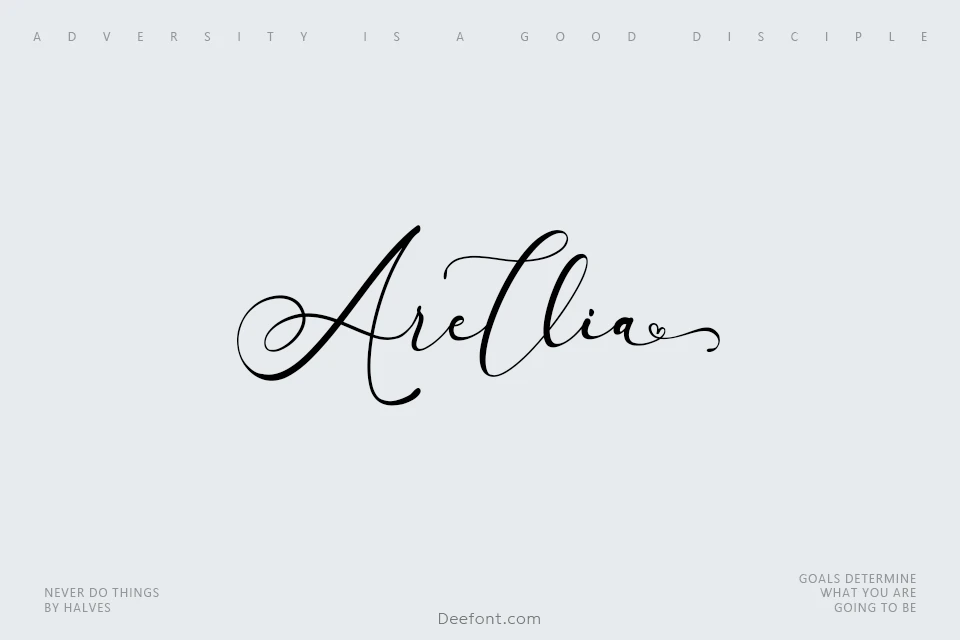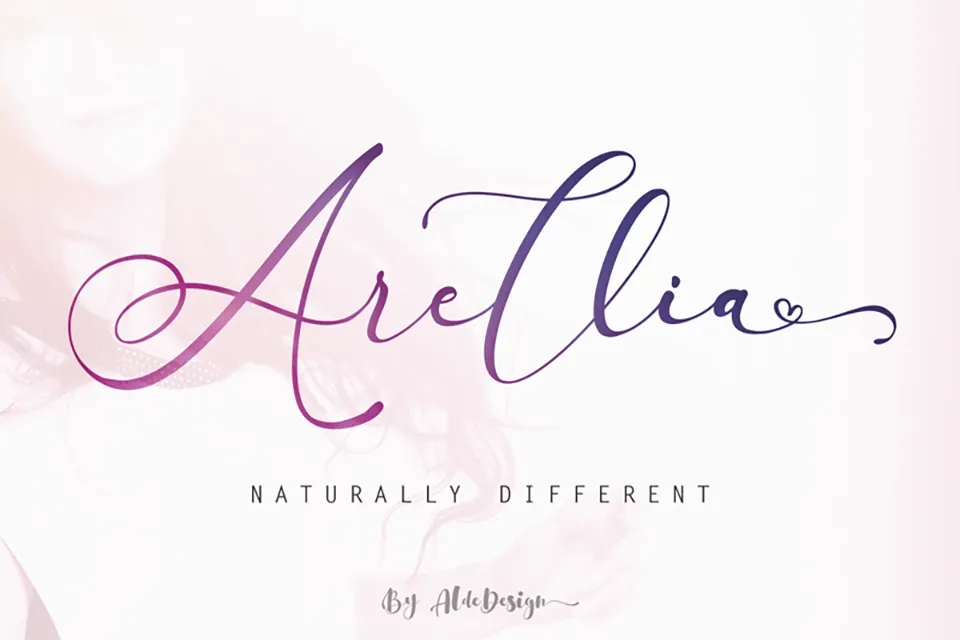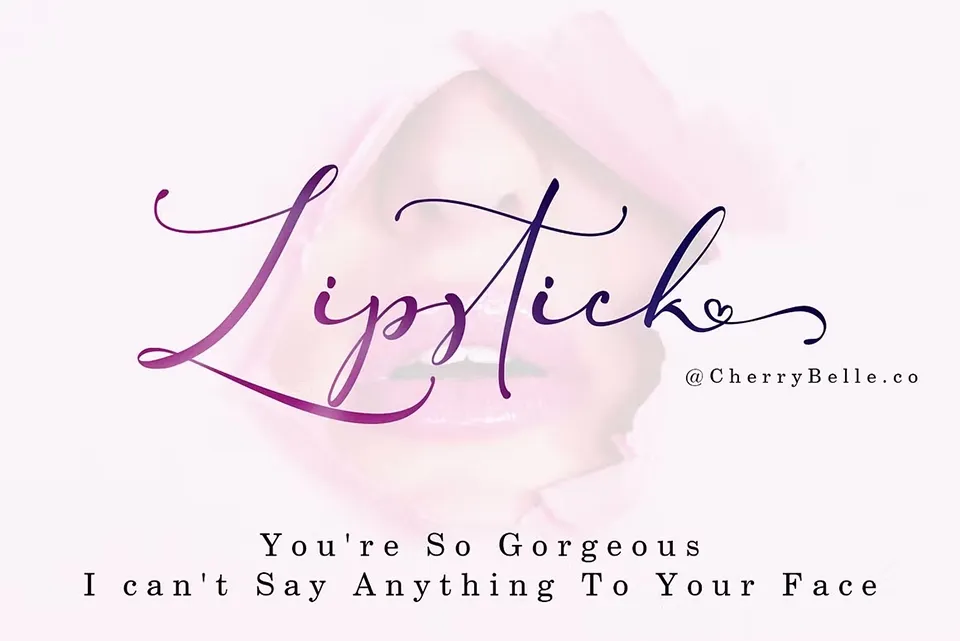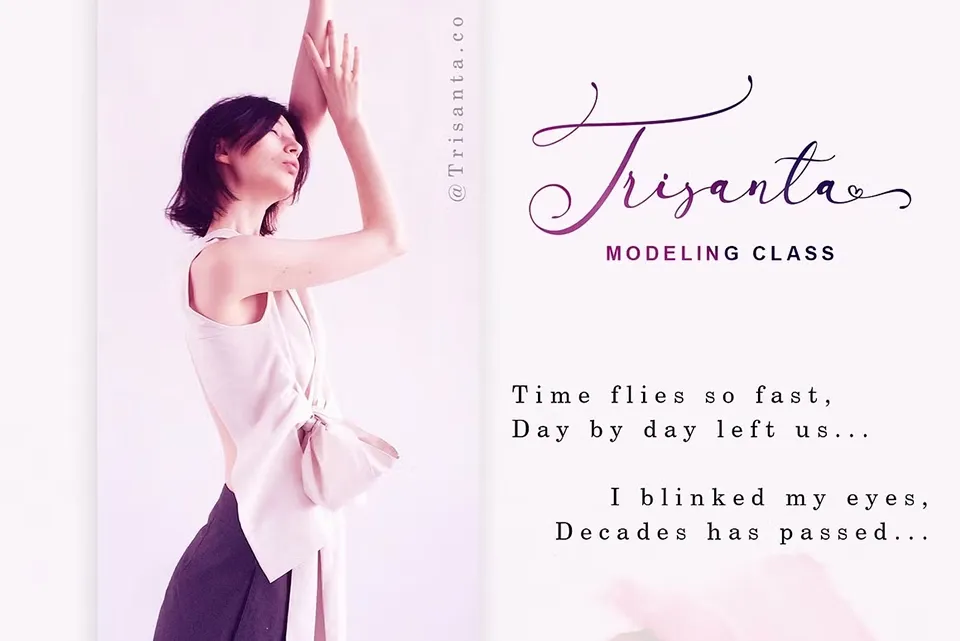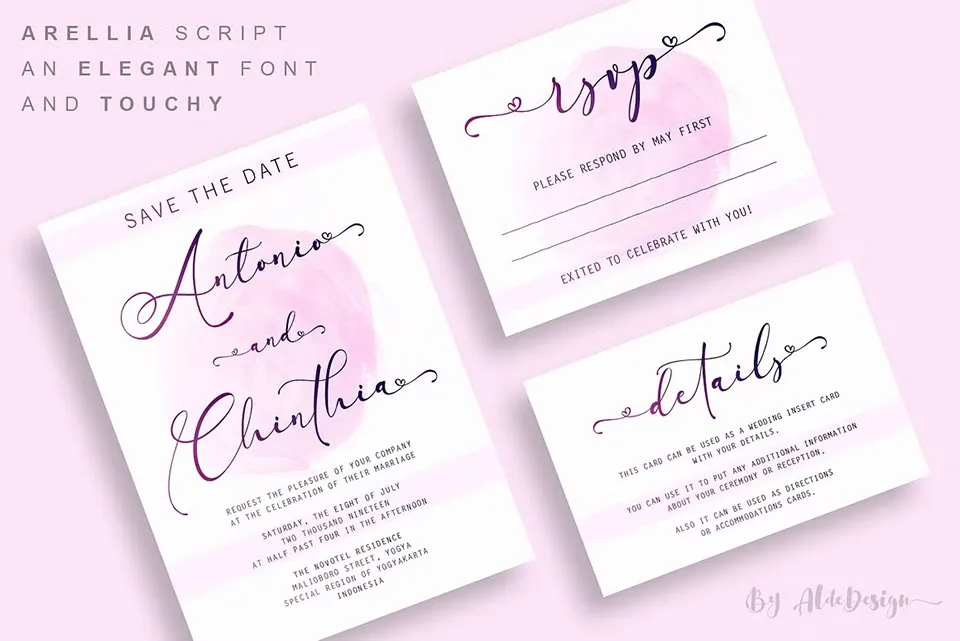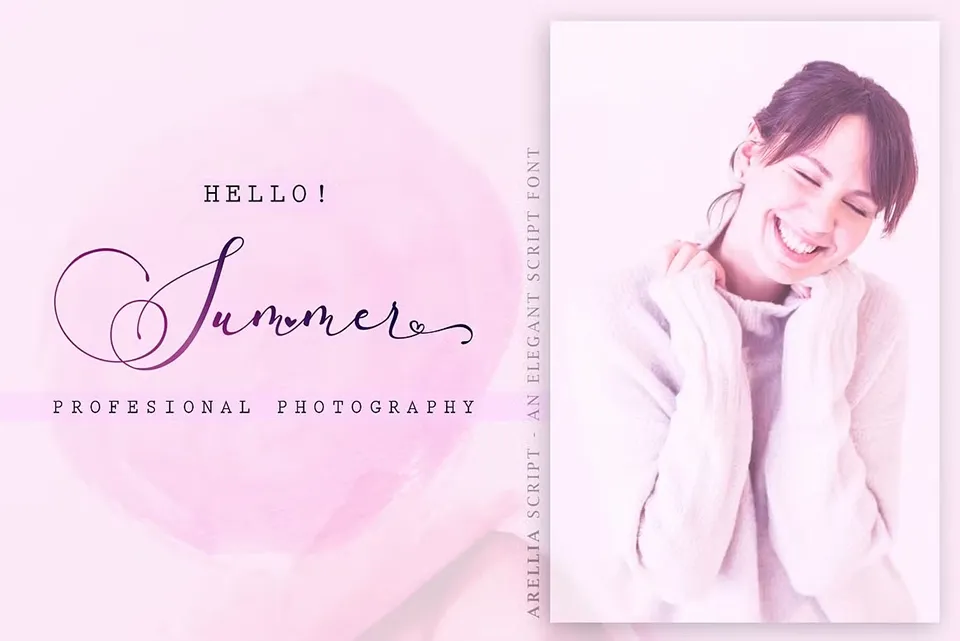
Arellia Font
Arellia Font is a stylish handwritten script font featuring a varying baseline, smooth lines, and a modern yet elegant feel. Designed with a touch of love and sophistication, it is perfect for branding, wedding invitations, signatures, logos, t-shirts, letterheads, signage, posters, and more. The font’s versatility and OpenType features make it suitable for both professional and personal creative projects, adding a warm and artistic flair to any design.